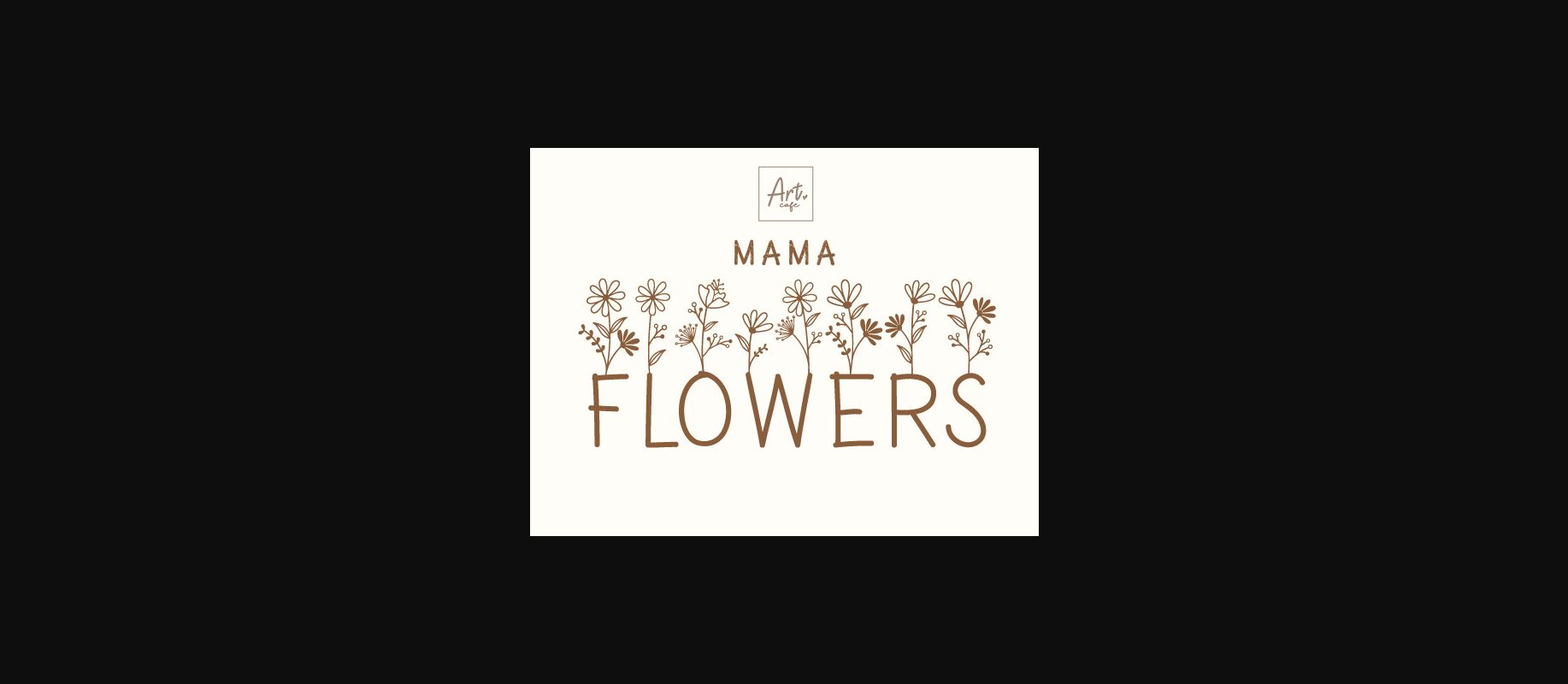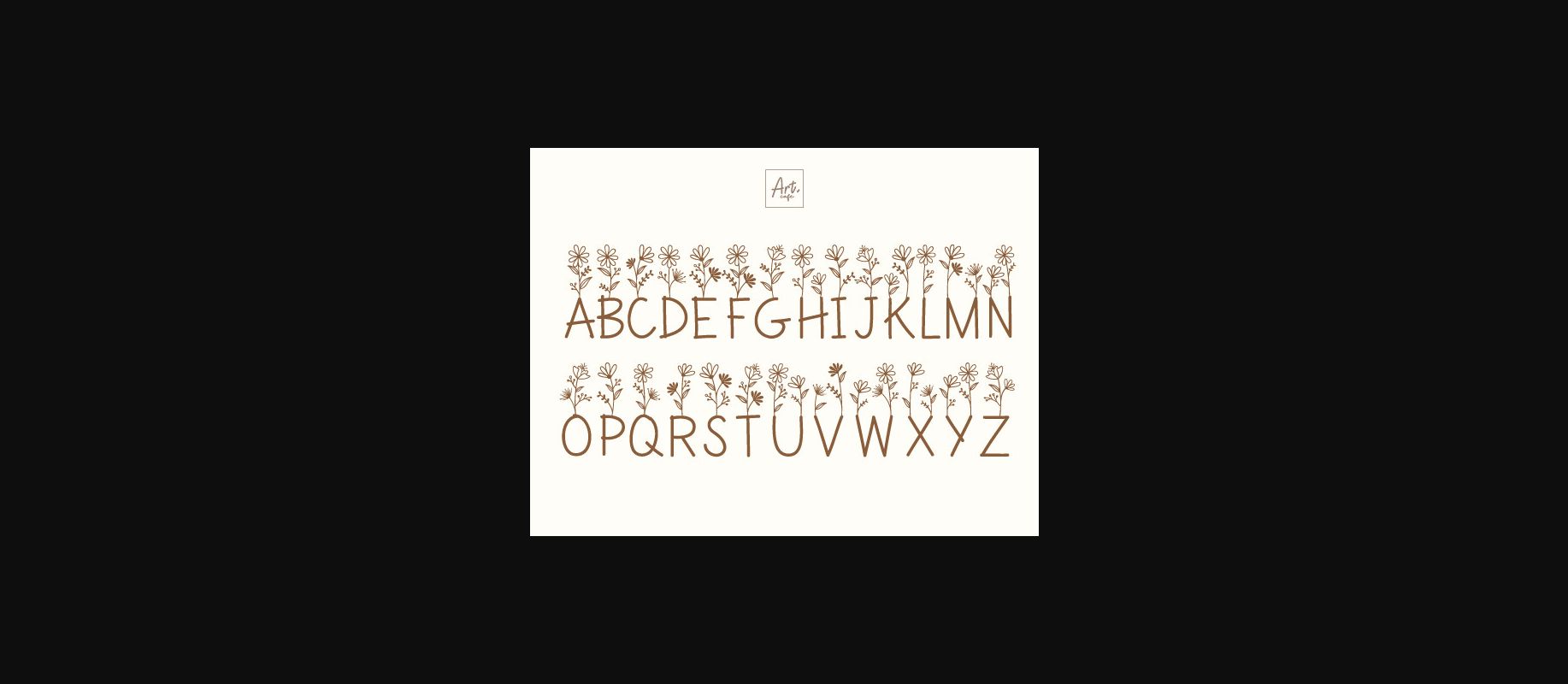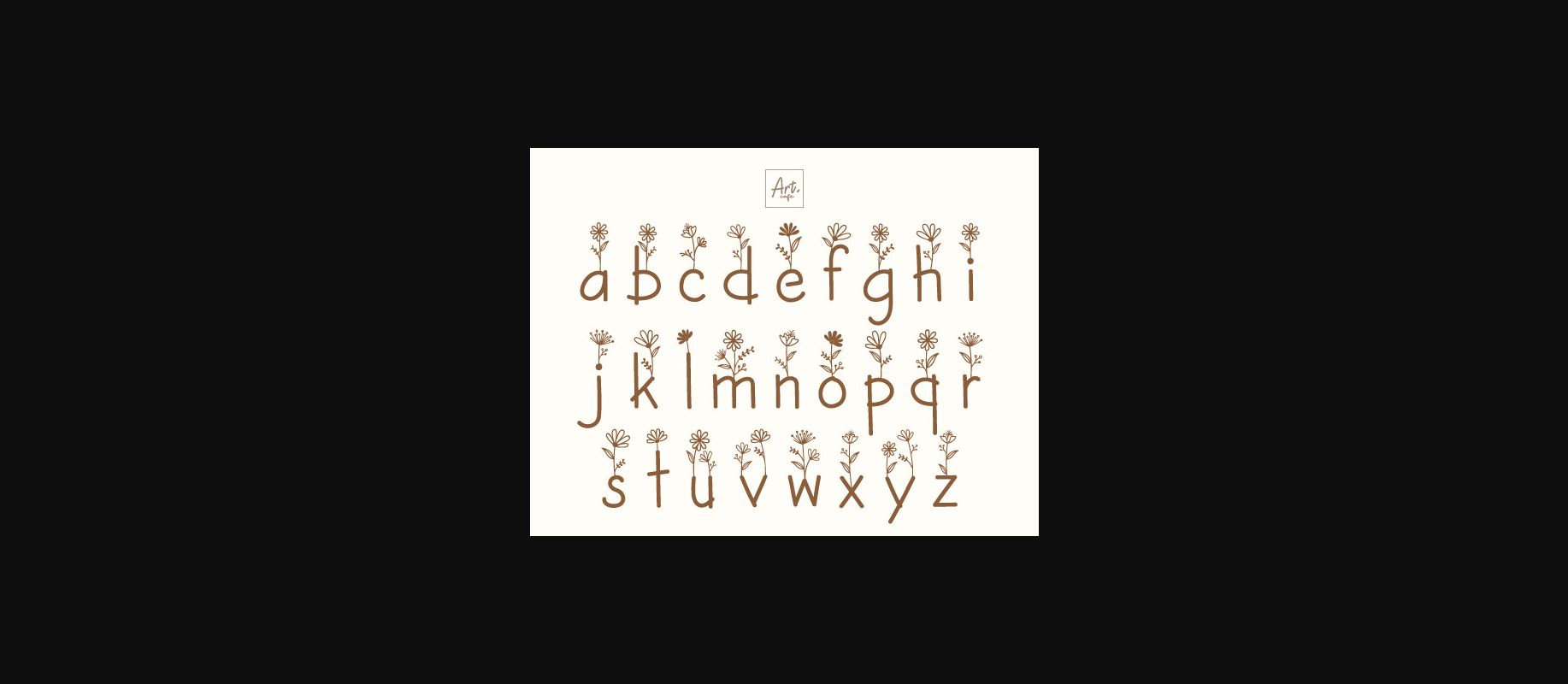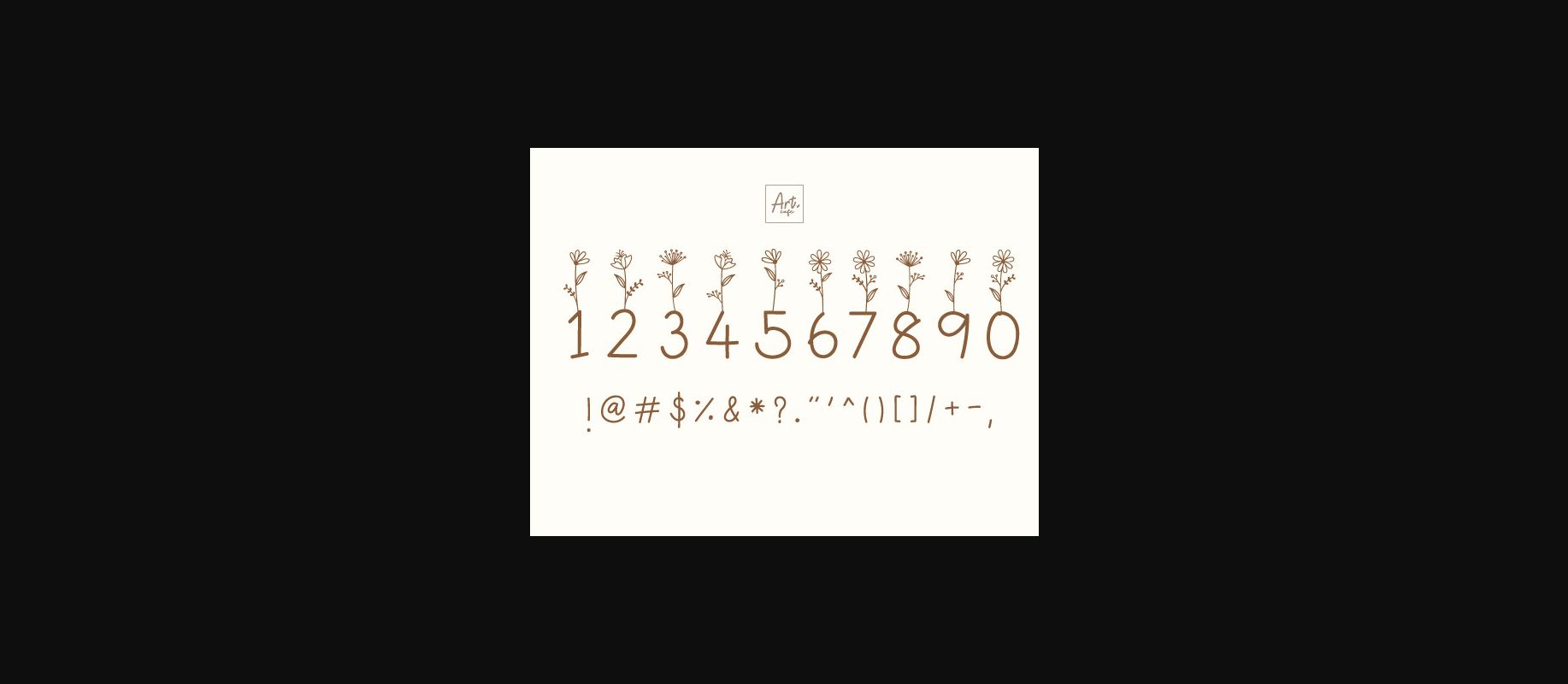
About Mama Flowers Font
Unveiling Mama Flowers, a splendid typeface, gracefully woven with dainty floral line art and steeped in boho flair. This elegant script is perfect for creating a heartfelt touch in your Mother’s Day and Teacher’s Day projects, bringing an intimate warmth with its harmonious blends of creativity and design. Conjure up an atmosphere of love and appreciation with every letter you craft using Mama Flowers.